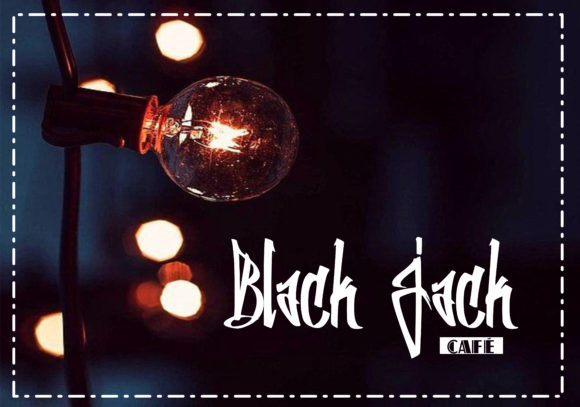
Bellaboy Font
About Bellaboy Font
Inspired by graffiti, Bellaboy is a bold and powerful handwritten font with an urban twist. It will add a contemporary feel to any design project.